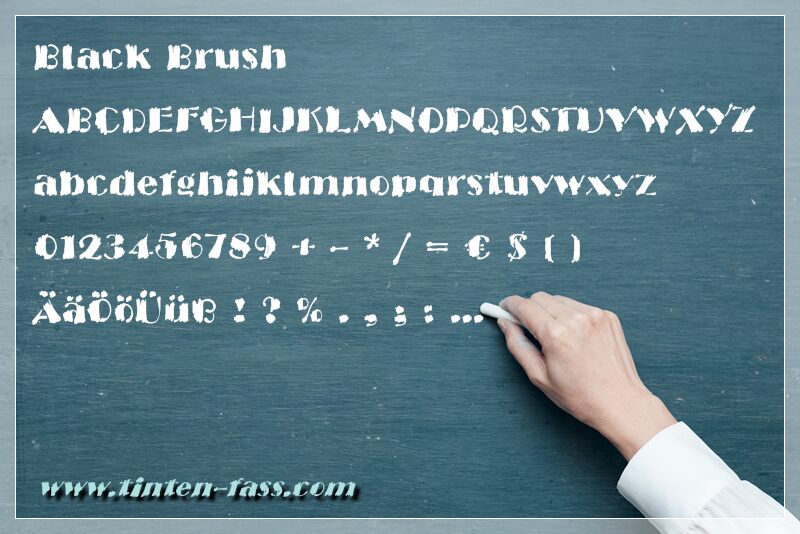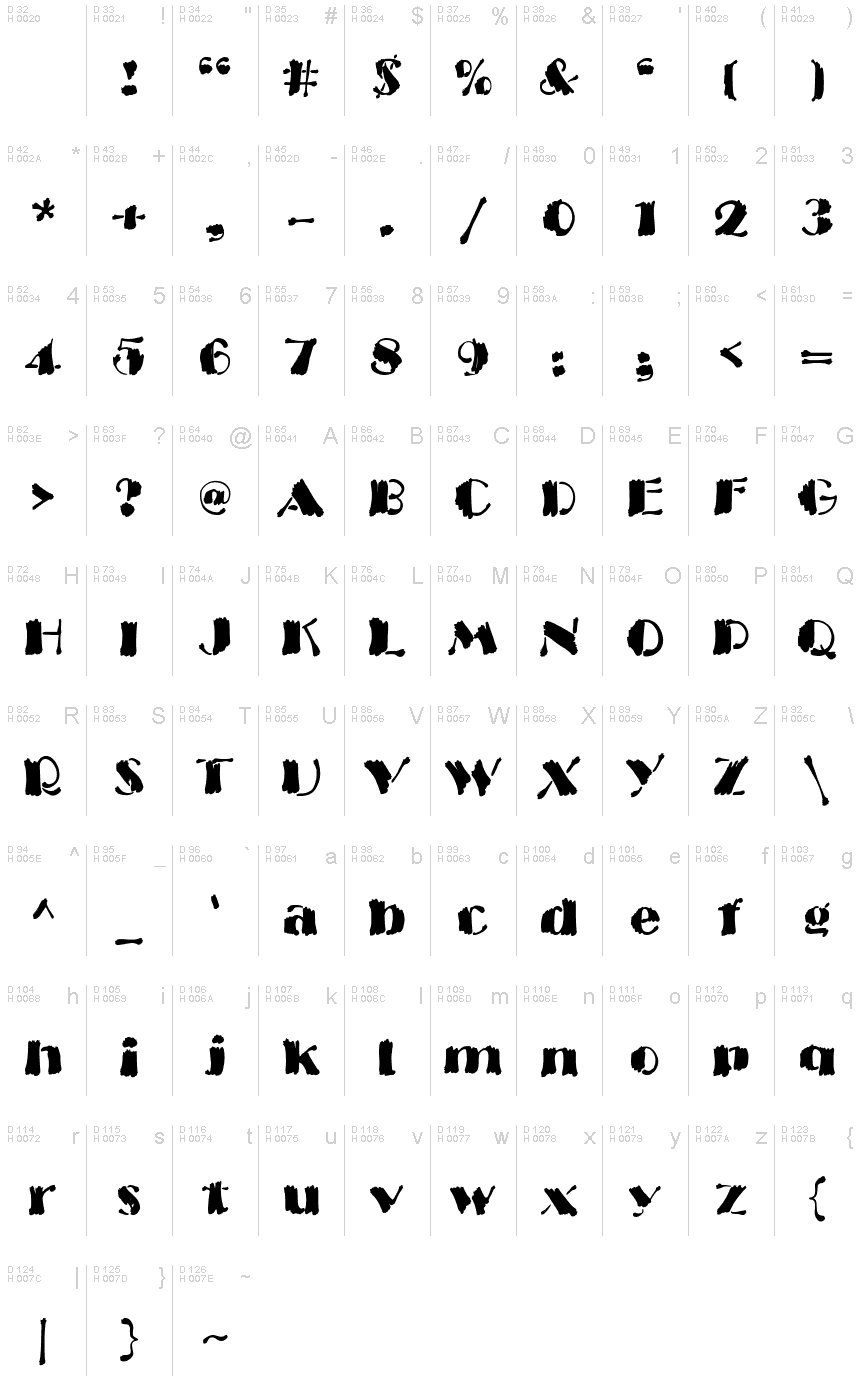
Black Brush
What is "Black Brush"?
This is the latest font from Tinten-Fass.Com Design! It is whacky and fun,
looks great as text, and guaranteed to make your documents more fun!